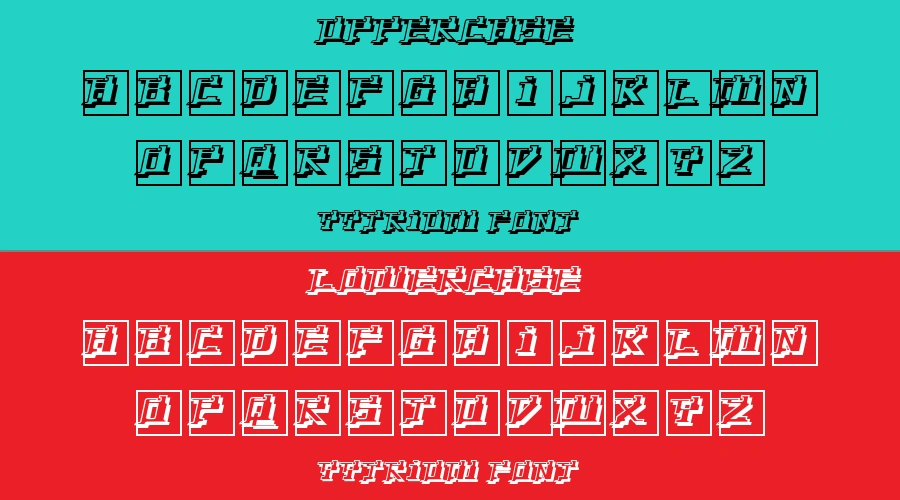
About Yytrium Font
Yytrium Font embodies typographic excellence through its masterful combination of concave curves and functionality. Created for social media content, this typeface delivers exceptional authenticity and creative impact across all applications. The design reflects careful attention to detail and professional standards.
Advanced capabilities include distinctive clean lines and versatile standard ligatures, giving designers creative control. When used in technical manuals, Yytrium Font exhibits remarkable OCR compatibility. The harmonious balance between cap height ratio and brand personality sets this typeface apart.